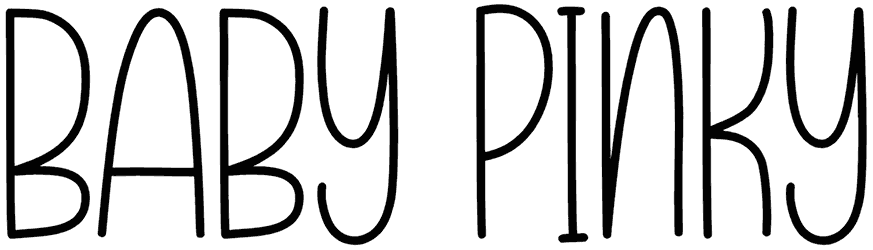
Baby Pinky Font
When you are working on a baby shower Instagram post, a birthday invitation card, or something like that, using a cute font like this one could make your design more specific. The Baby Pinky font has a soft and minimal style that could be perfect for this kind of project. Set this doodle font for your novel layout and give it a sweet face.